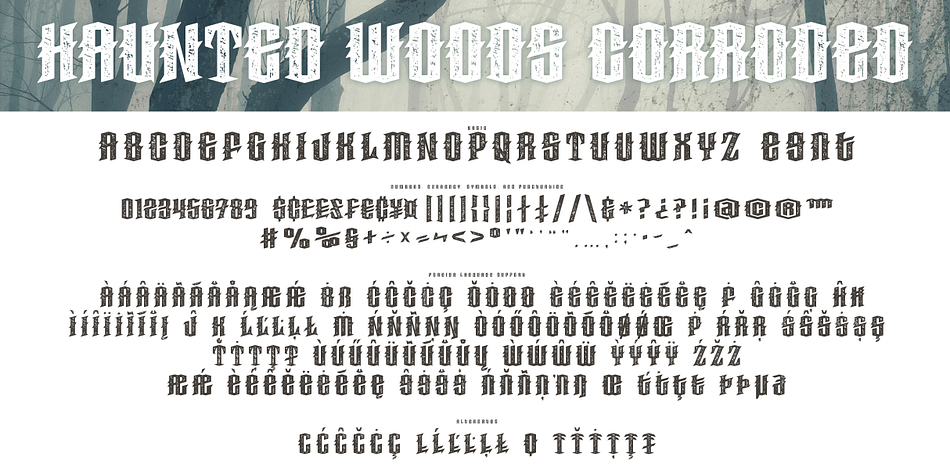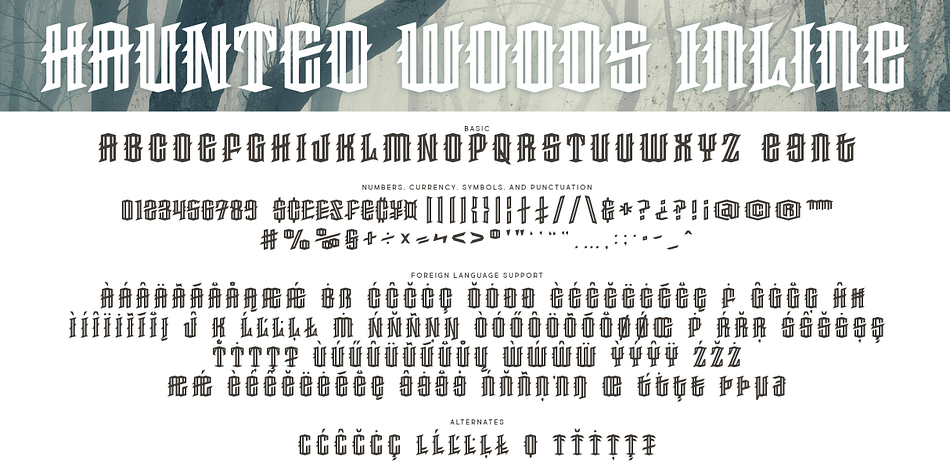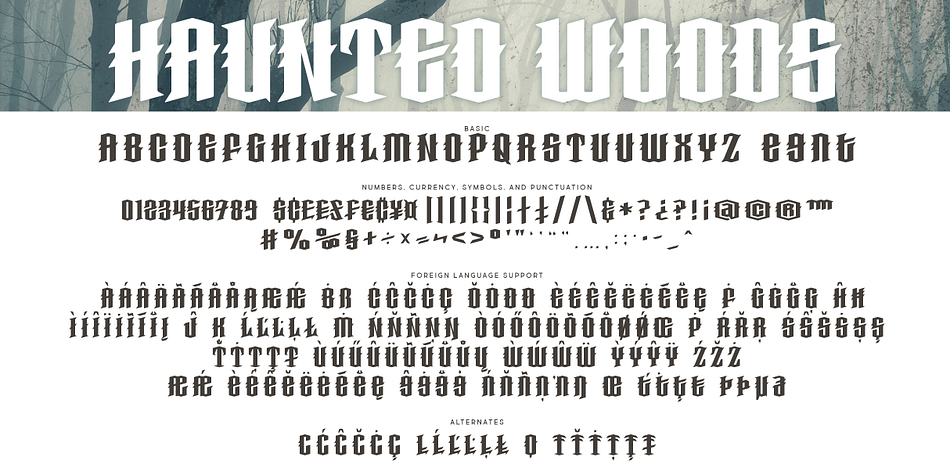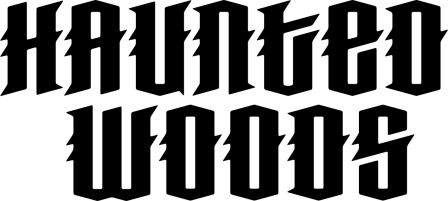
Designed by Brittney Murphy, Haunted Woods is a display and western font family. This typeface has three styles and was published by Brittney Murphy Design.
The Haunted Woods Font Family is a smooth, spiked Gothic font from Brittney Murphy Design. Containing 391 mixed-case characters, Haunted Woods has multi language support for most latin-based languages.
Font Family includes three versions: Regular, Inline, and Corroded.
Foundry | Brittney Murphy Design |
Styles | Display, Western |
Designer | Brittney Murphy |